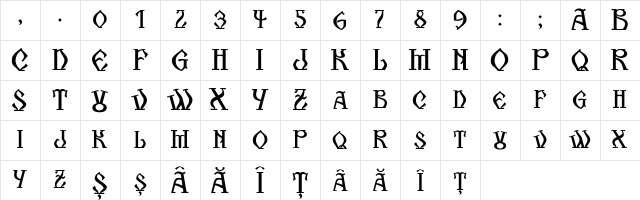
Kogaion SC FR v3.9 Regular
Designer: Florin Florea
Kogaion SC FR v3.9 is a composed and adaptable typeface that performs quietly and consistently across a wide range of design contexts.